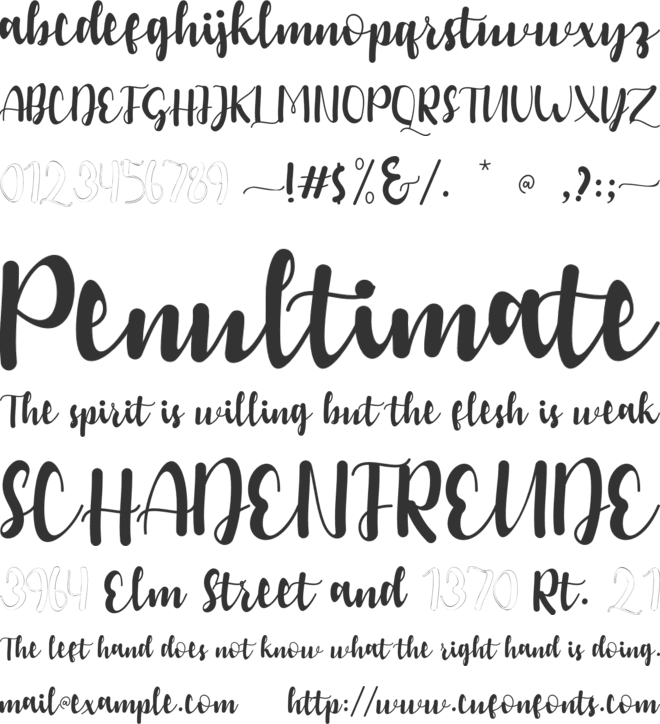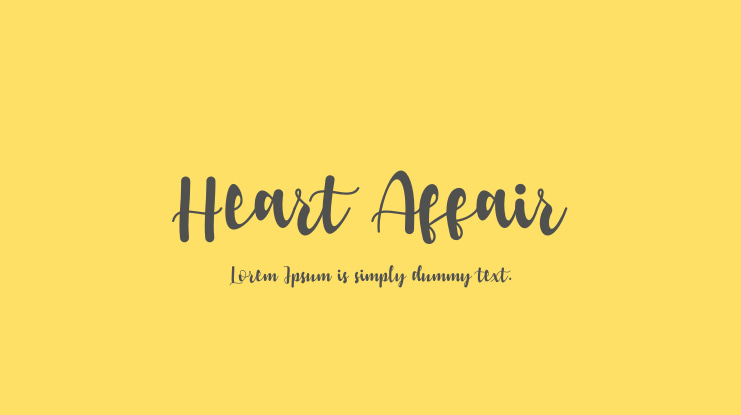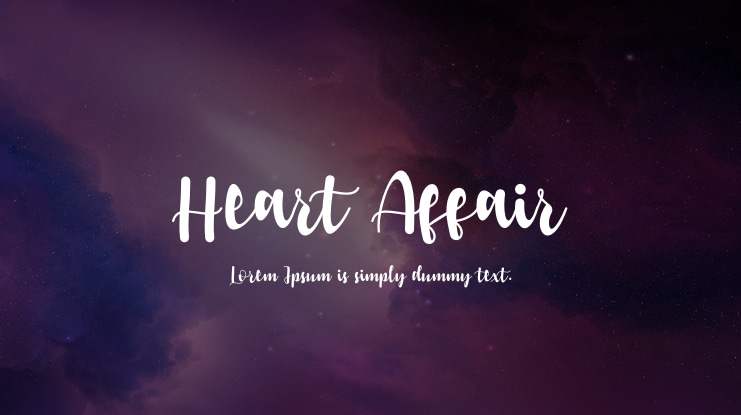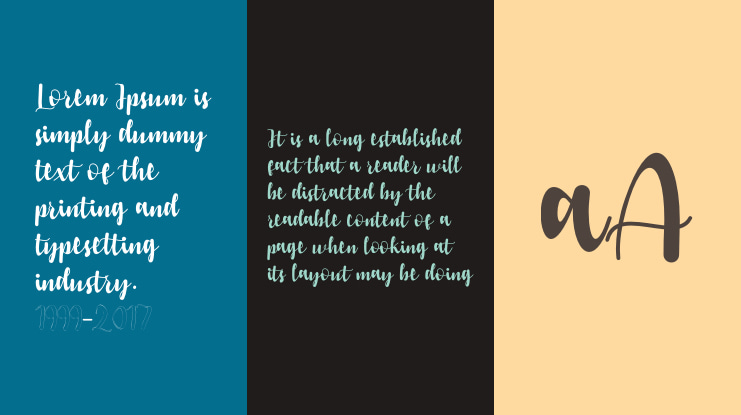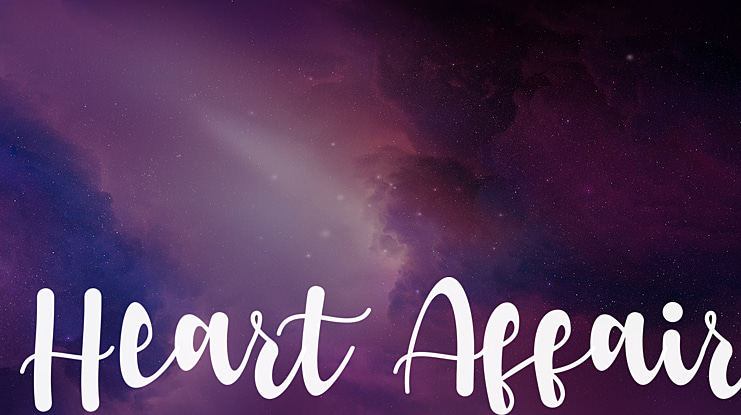
Heart Affair Font
Nuryanto Dwi
Heart Affair is an elegant and romantic font with lovely heart ornament.
This original look will attract a variety of crafty ideas, from letterheads and headings, to stationery.